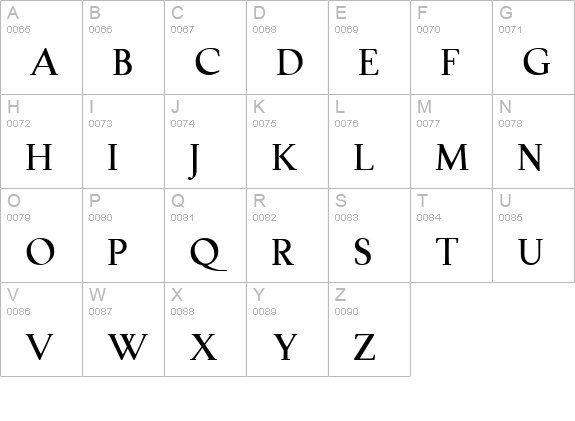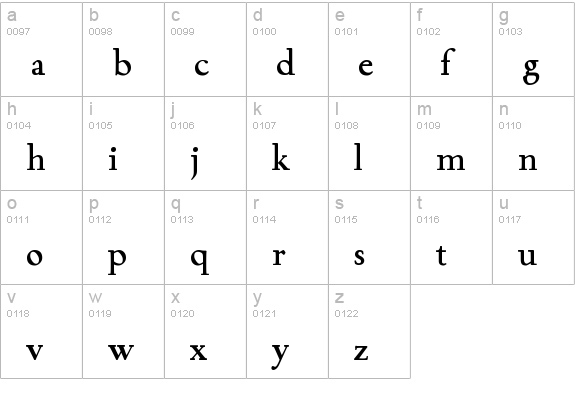
TaskBold Font Details
TaskBold is a sleek and modern font that exudes confidence and professionalism. With its bold and eye-catching design, TaskBold is perfect for making a statement in your designs. Whether you're working on a logo, poster, or website, TaskBold will ensure your message stands out loud and clear. One of the best parts about TaskBold is that it is completely free to download at FontsMarket.com. This means you can enhance your projects with this stylish font without having to worry about any additional costs. TaskBold offers a seamless blend of elegance and boldness, making it a versatile choice for a wide range of design applications. Add a touch of sophistication to your work with TaskBold and let your creativity shine. Download TaskBold today at FontsMarket.com and elevate your designs to the next level.